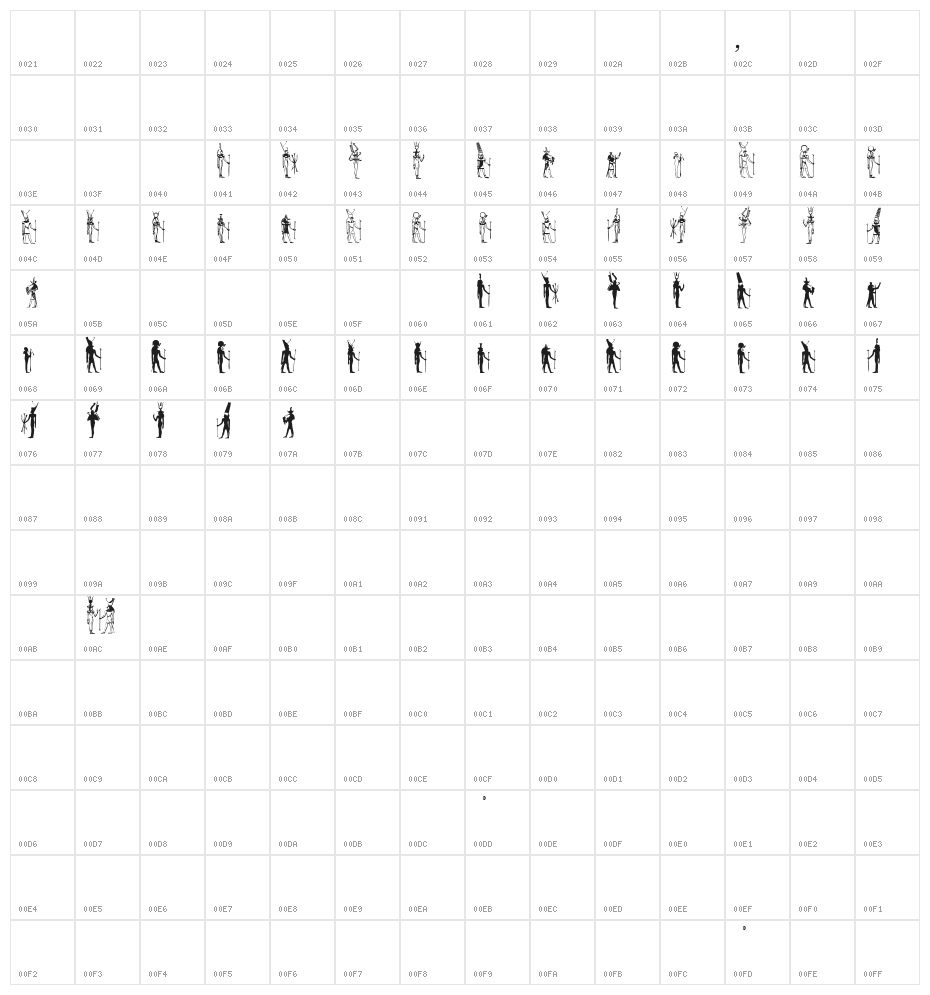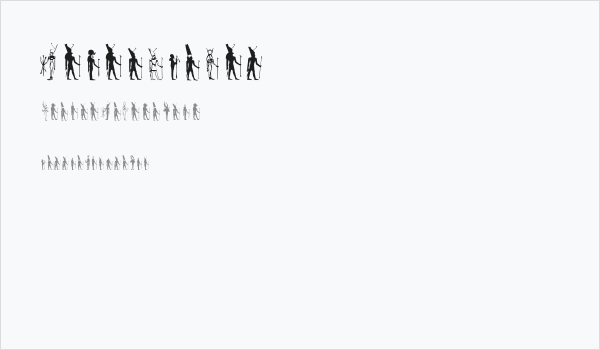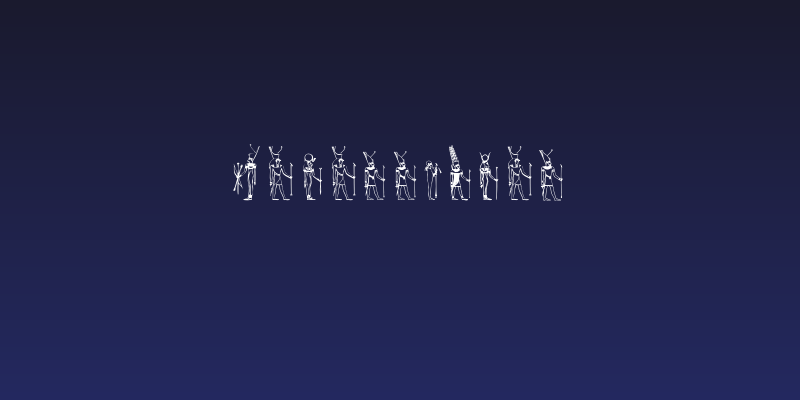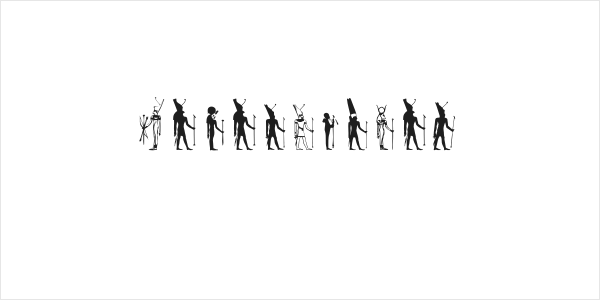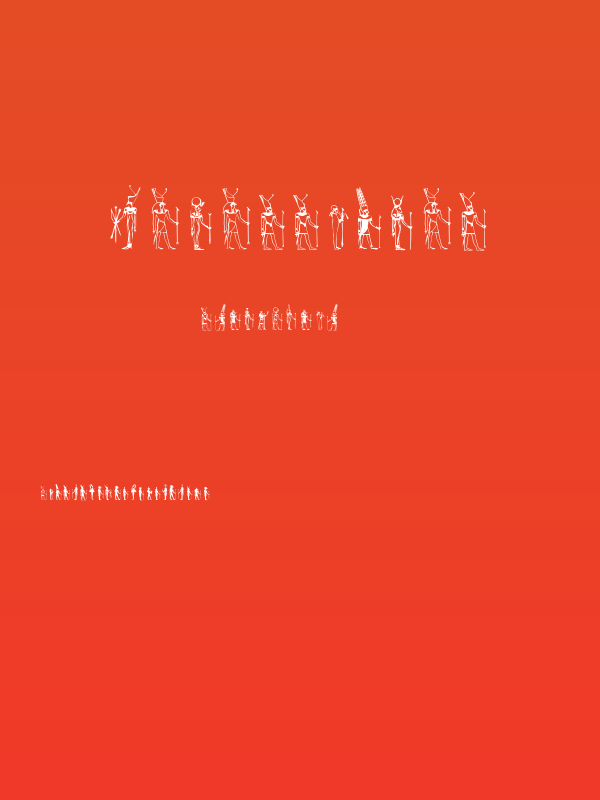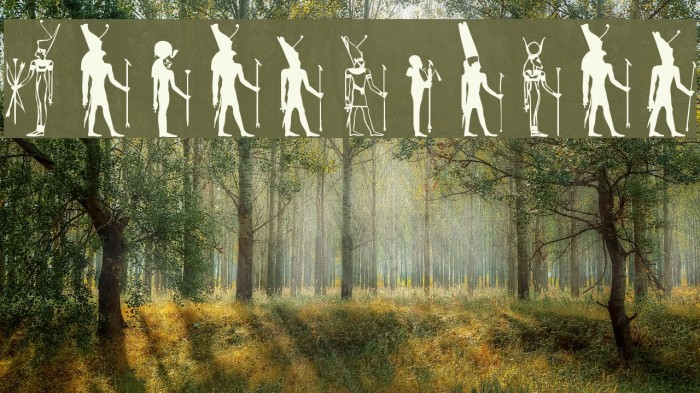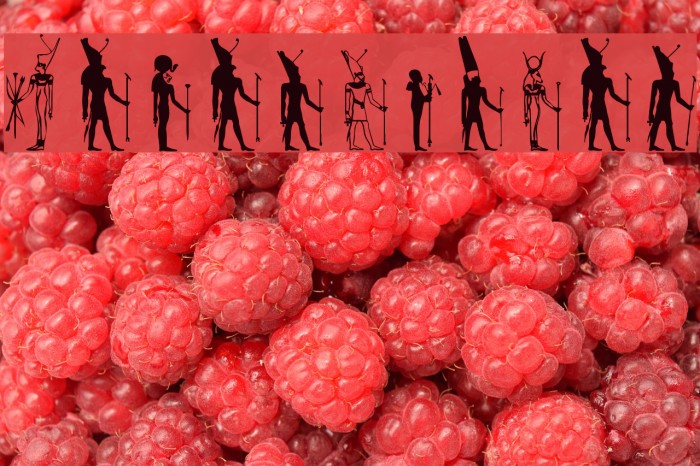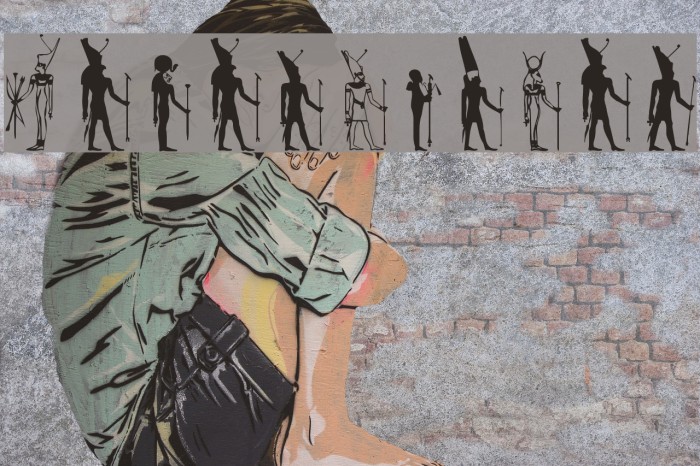
VisitTheNil Font
VisitTheNil Description
This font is a unique and artistic representation of ancient Egyptian figures, each character depicted as a stylized silhouette of a deity or figure from Egyptian mythology. The characters are intricately detailed, capturing the essence of traditional Egyptian attire and iconography. The font is highly decorative, with each letter and symbol resembling a small piece of art. The figures are depicted in various poses, holding staffs or other traditional items, adding to the authenticity and thematic consistency of the font. This font is not designed for typical text usage but rather as a thematic display or decorative element, perfect for projects that require an ancient or historical aesthetic.
| Use Case | Logos, Decorative elements, Themed displays |
| Proposed Projects | Ideal for themed posters, educational materials on ancient Egypt, museum exhibits, or decorative art projects. |